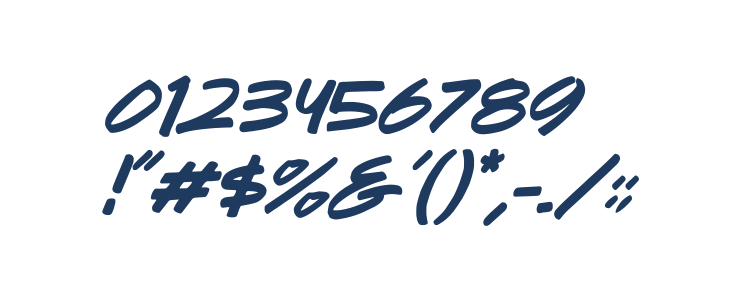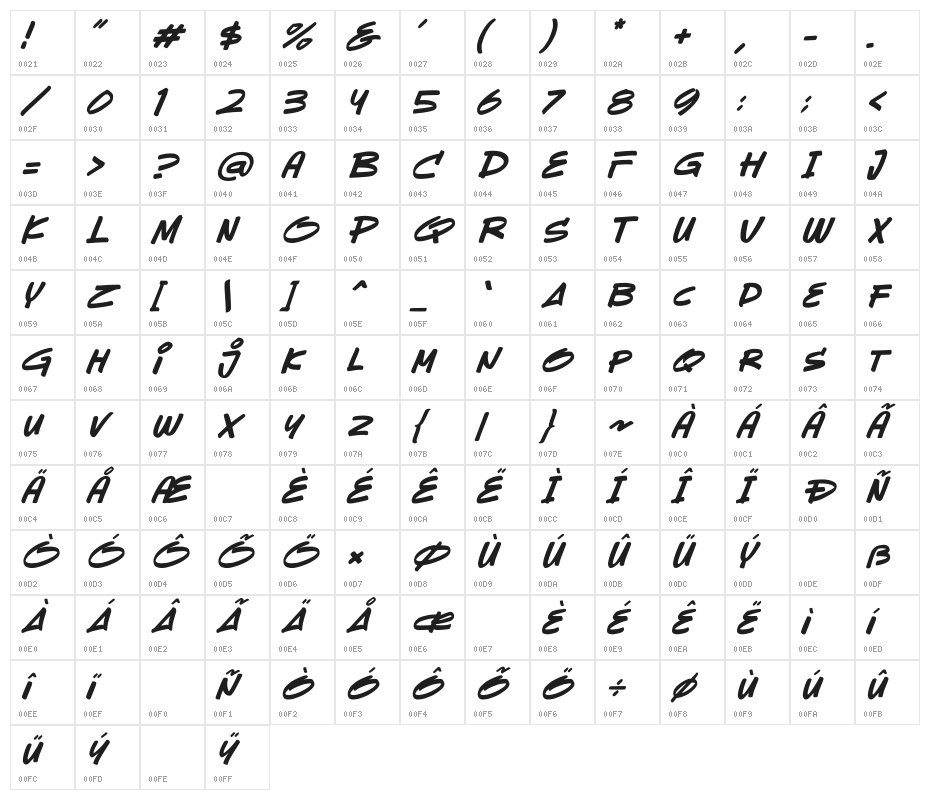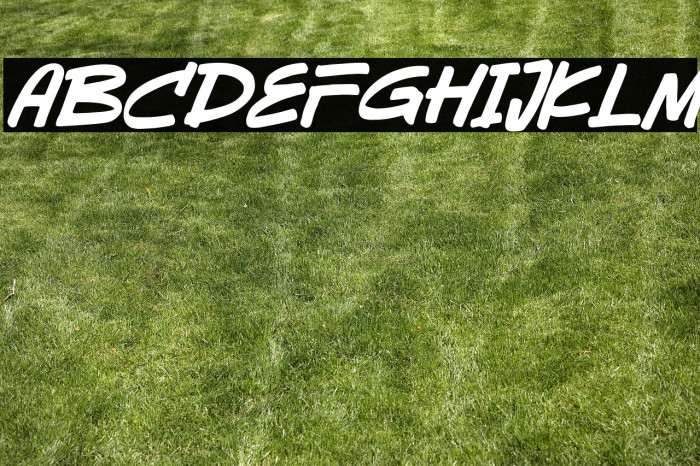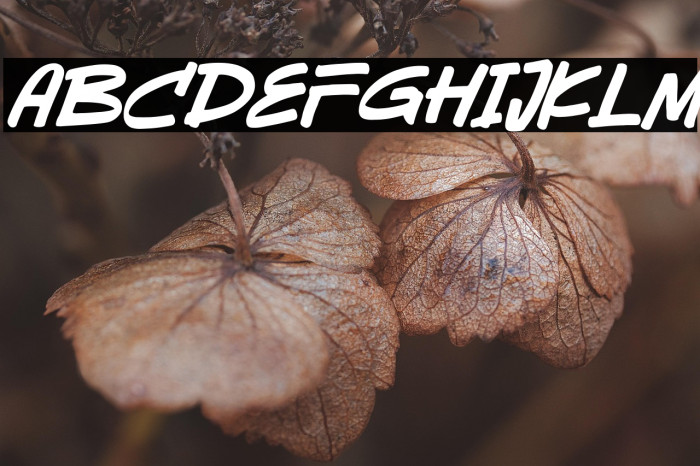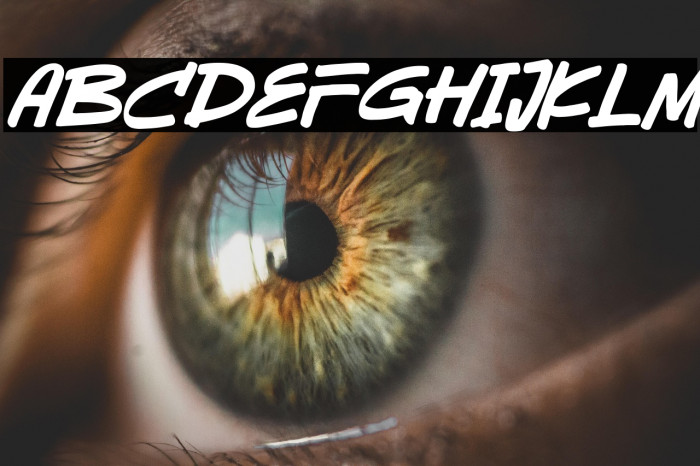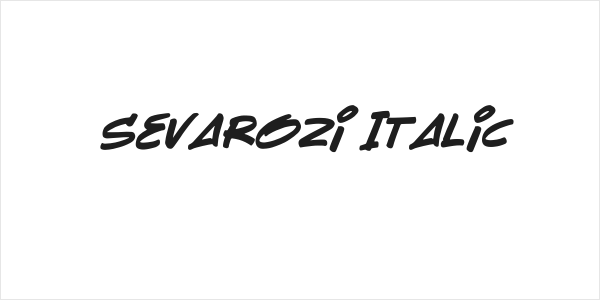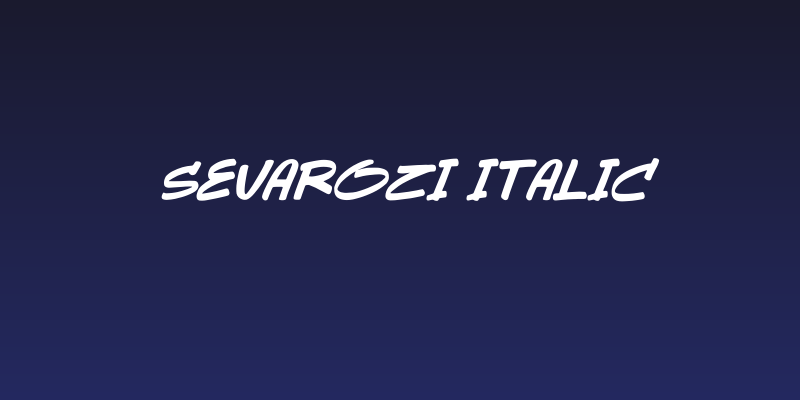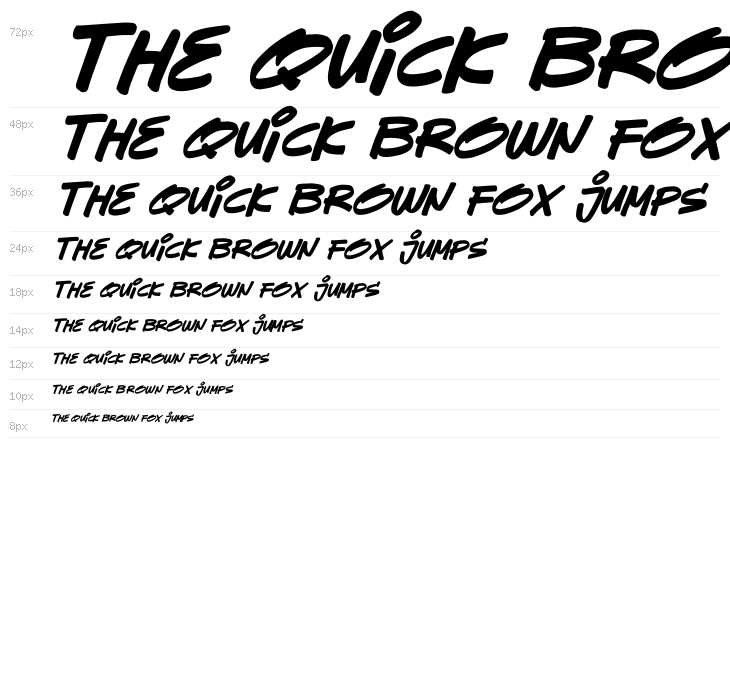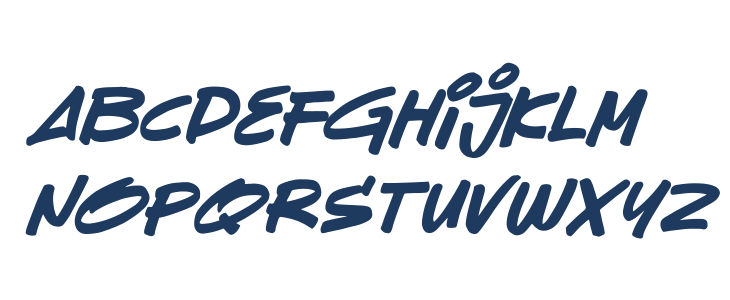
Sevarozi Italic Font
Sevarozi Italic Description
This font exhibits a dynamic and energetic style with a pronounced italic slant, giving it a sense of motion and fluidity. The characters are bold and rounded, with smooth curves and a consistent stroke width that conveys a modern and approachable feel. The uppercase and lowercase letters maintain a cohesive design, with distinctive features such as the looping descenders and ascenders. The numerals are equally bold and maintain the same fluid style, ensuring readability and visual harmony. Special characters are well-integrated, matching the overall aesthetic and providing versatility for various uses.